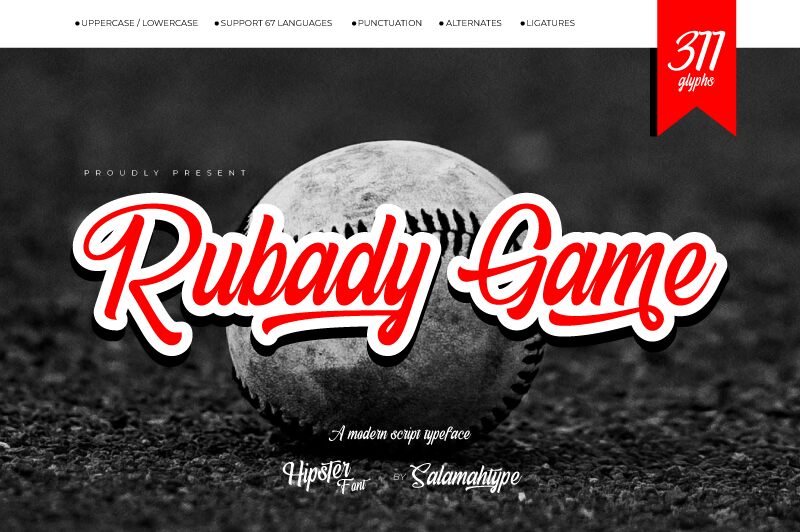
Rubady Game Personal
Rubady Game, designed by Salamahtype.com, is a retro handwritten font that exudes a playful and nostalgic vibe. Its semi-light weight gives it an airy feel, making it perfect for projects that require a touch of whimsy. Use Rubady Game for gaming logos, vintage posters, or even children's books. This versatile typeface can also be used for social media graphics and branding materials to add a unique twist to your designs. With its quirky charm and legibility, Rubady Game is sure to make any project stand out.